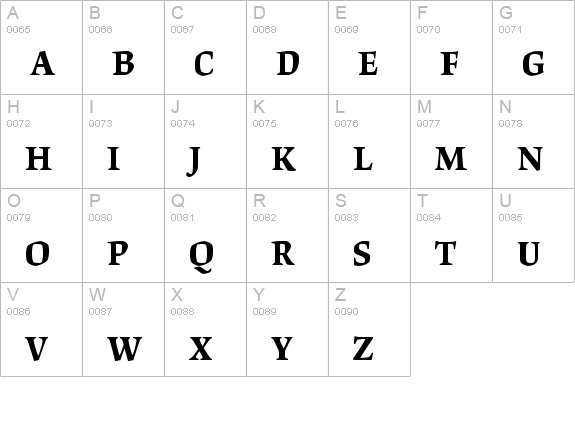
Origami Std Semibold is a sub-bold, structured variant in the Origami typeface family \xE2\x80\x94 well suited to sub-headlines and emphasised passages.
Origami Std Semibold font is a modern and stylish typeface that strikes the perfect balance between elegance and readability. With its bold and robust appearance, this font is ideal for creating attention-grabbing headlines, logos, and branding materials. The clean lines and sharp edges of Origami Std Semibold exude a sense of sophistication and professionalism, making it a versatile choice for a wide range of design projects. The best part is that Origami Std Semibold font is available for free download at FontsMarket.com. Whether you're a professional designer looking to add a contemporary touch to your creations or a hobbyist experimenting with different typography styles, this font is a fantastic addition to your collection. Download Origami Std Semibold today and elevate your designs with its unique and impactful aesthetic.